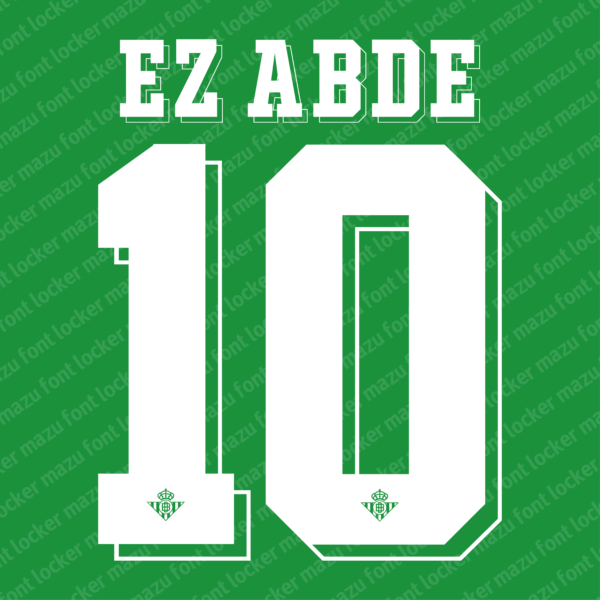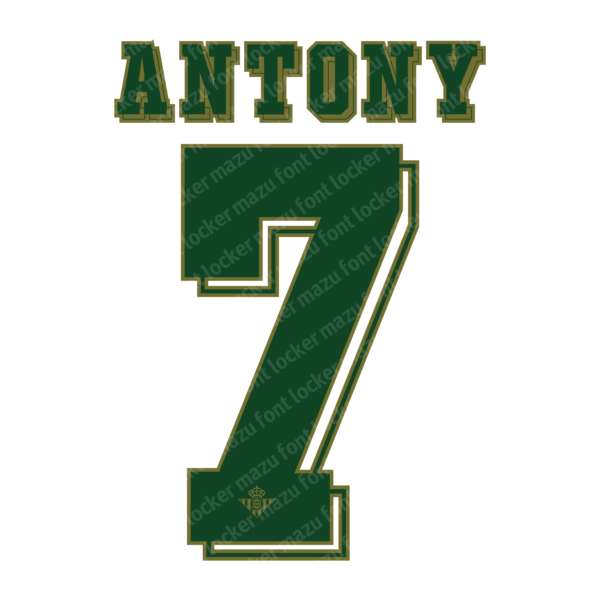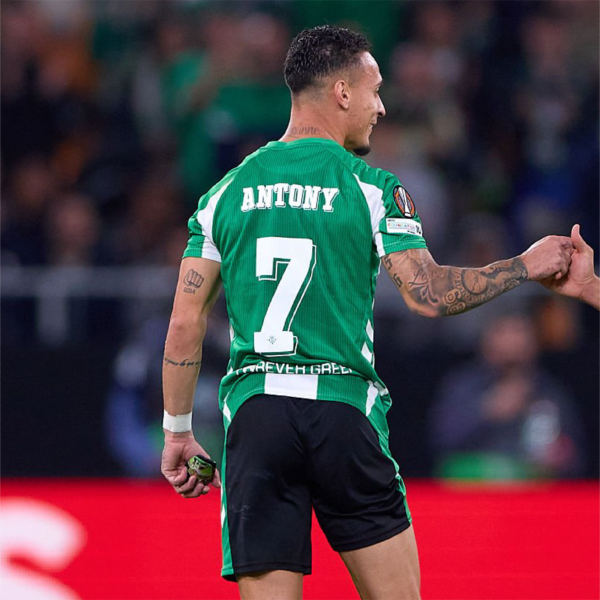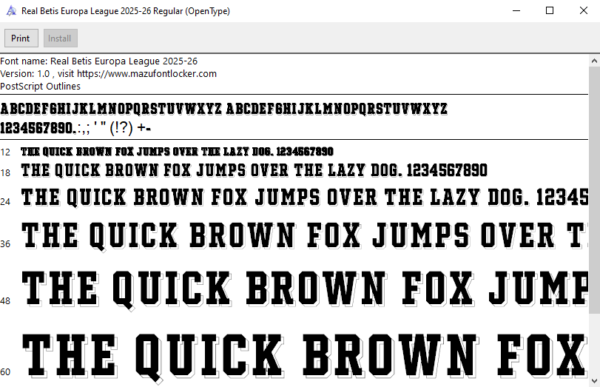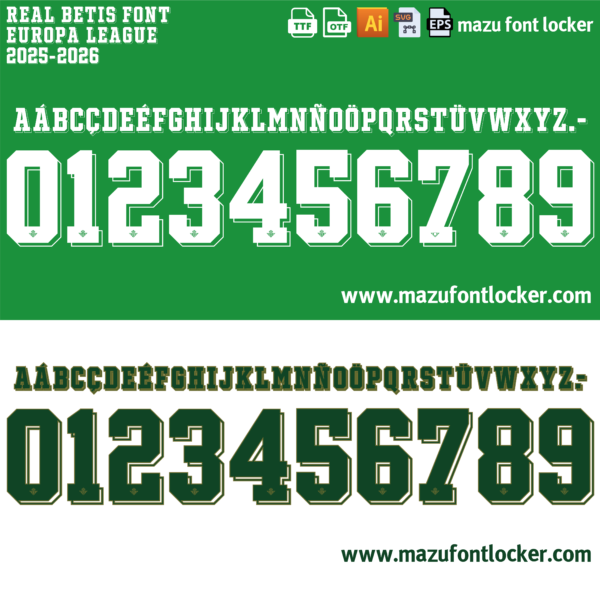
Download authentic Real Betis 2025-2026 Font! This premium official replica captures the bold, elegant, and passionate lettering and numbering from Real Betis’ stunning 2025-2026 kit.
The Real Betis 2025-2026 Font reflects the rich Andalusian heritage, vibrant spirit, and unwavering pride of one of Spain’s most beloved clubs. Whether you’re a graphic designer, content creator, or dedicated Betis supporter, this high-quality vector font delivers sharp, scalable, and emotionally powerful results for both digital and premium print use.
The Real Betis 2025-2026 Font is a premium, high-precision football jersey font vector meticulously crafted to replicate the official bold lettering and commanding numbering style of the iconic 2025-2026 season.
Inspired by the legendary Verdiblanco kit, this font delivers a fiery, passionate, and majestic match-day presence that radiates the club’s rich Andalusian heritage, unwavering loyalty, and unbreakable fighting spirit. Every letter and number has been painstakingly recreated with exceptional detail to capture the sharp, vibrant, and timeless aesthetic that defines one of Spain’s most beloved and emotionally powerful clubs.
• Authentic 2025-2026 jersey lettering style
The authentic lettering style helps recreate the classic look of the Real Betis 2025-2026 kit with professional accuracy.
Unlike generic jersey fonts, this set is designed with a strong focus on authenticity and accuracy. Every detail is based on the original match lettering style used during the 2025-2026 Season, helping designers and collectors create realistic football shirt designs.
This Real Betis 2025-2026 font vector set is designed for authentic football jersey customization and works perfectly for retro football projects, collector designs, and professional sportswear artwork.